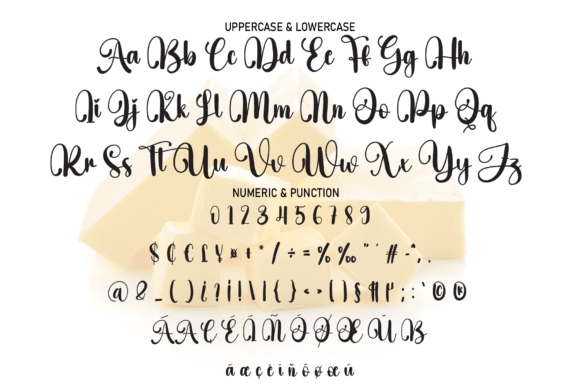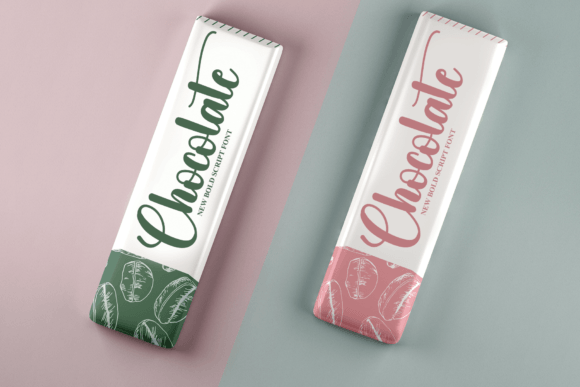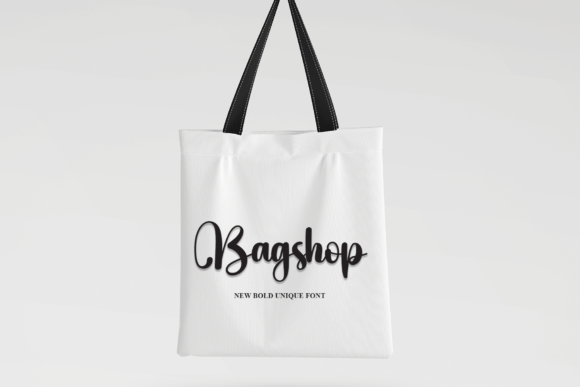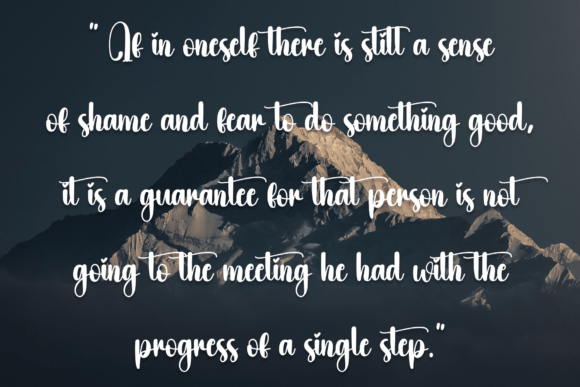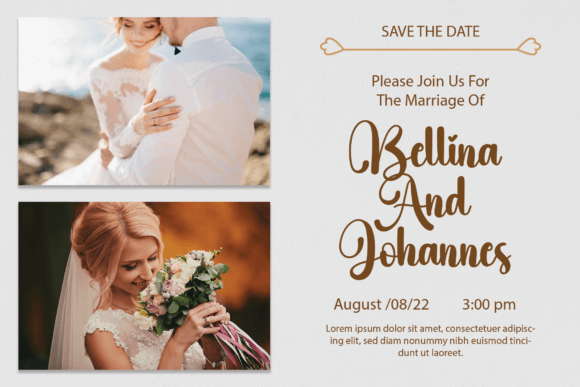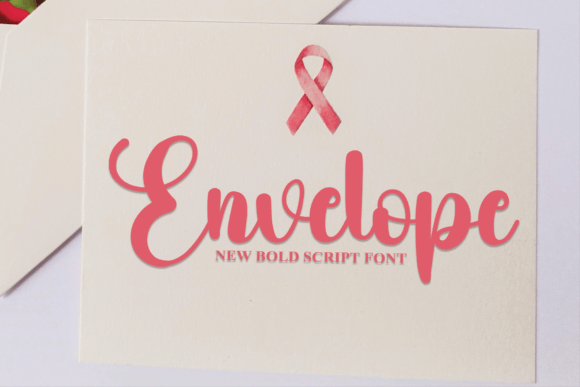
Introducing Butter Signature Font: The Timeless Choice for Designers and Crafters
Are you a designer or crafter looking for a font that can add a touch of elegance and sophistication to your designs? Look no further than Butter Signature Font, a lovely and timeless handwritten font that is perfect for creating eye-catching logos, branding, and quotes. With its unique and beautiful touch, this font is sure to make your design come alive!
What Makes Butter Signature Font So Special?
Butter Signature Font is a one-of-a-kind handwritten font that boasts a distinctive and charming style. Every letter has been carefully crafted to have a unique and beautiful touch, making it perfect for designers and crafters who want to add a personal touch to their designs. Whether you’re creating a logo, branding materials, or quotes, this font is sure to impress.
The Benefits of Using Butter Signature Font
So, why choose Butter Signature Font for your design needs? Here are just a few benefits of using this amazing font:
- Elegant and Sophisticated: Butter Signature Font has a timeless and elegant feel that is perfect for designers and crafters who want to create sophisticated designs.
- Unique and Beautiful: Every letter has a unique and beautiful touch, making it perfect for adding a personal touch to your designs.
- Versatile: This font is perfect for a wide range of design applications, including logos, branding, quotes, and more.
- Easy to Read: Despite its elegant and cursive style, Butter Signature Font is easy to read, making it perfect for use in a variety of design contexts.
How to Use Butter Signature Font in Your Designs
Using Butter Signature Font in your designs is easy! Here are a few tips to get you started:
- Pair it with Other Fonts: Butter Signature Font pairs well with a variety of other fonts, making it easy to create visually interesting and dynamic designs.
- Use it for Headlines and Titles: This font is perfect for use in headlines and titles, where its elegant and sophisticated style can really shine.
- Add it to Your Branding Materials: Use Butter Signature Font to create consistent and professional-looking branding materials, including logos, business cards, and more.
- Experiment with Different Colors and Textures: Don’t be afraid to experiment with different colors and textures to really make your design pop!
Why Designers and Crafters Love Butter Signature Font
Designers and crafters love Butter Signature Font for a variety of reasons. Here are just a few:
- It’s Timeless: This font has a timeless quality that ensures it will never go out of style.
- It’s Versatile: Butter Signature Font can be used in a wide range of design applications, making it a great addition to any designer’s toolkit.
- It’s Unique: Butter Signature Font has a unique and distinctive style that sets it apart from other fonts.
In conclusion, Butter Signature Font is a lovely and timeless handwritten font that is perfect for designers and crafters who want to add a touch of elegance and sophistication to their designs. With its unique and beautiful touch, this font is sure to make your design come alive! Whether you’re creating logos, branding materials, or quotes, Butter Signature Font is the perfect choice.